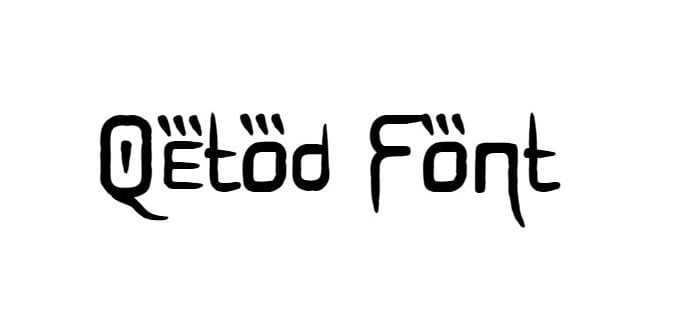
Qetod
Qetod is a fancy font created by fgstudios (2022). It's a decorative display font with plenty of personality, made to grab attention. It's a free download, and you can try it with your own text in the preview above first.
- Glyphs: 96
Qetod covers the full alphabet in upper and lowercase, plus all ten numbers, so you can set names, dates and prices without switching fonts. Everyday marks like &, !, ? and @ are there too. There are no accented letters like é or ñ, so it's best kept to English text.
Think of Qetod for posters, logos and eye-catching headlines. The file has no kerning data, so in logos and big titles check pairs like AV, To and Wa and tighten the spacing by hand. Use it for one standout word or headline and let simpler fonts handle the rest.
Who designed Qetod font?
Does Qetod support accented letters?
No. Qetod has no accented letters such as é, ñ or ü, so it's best for English text.